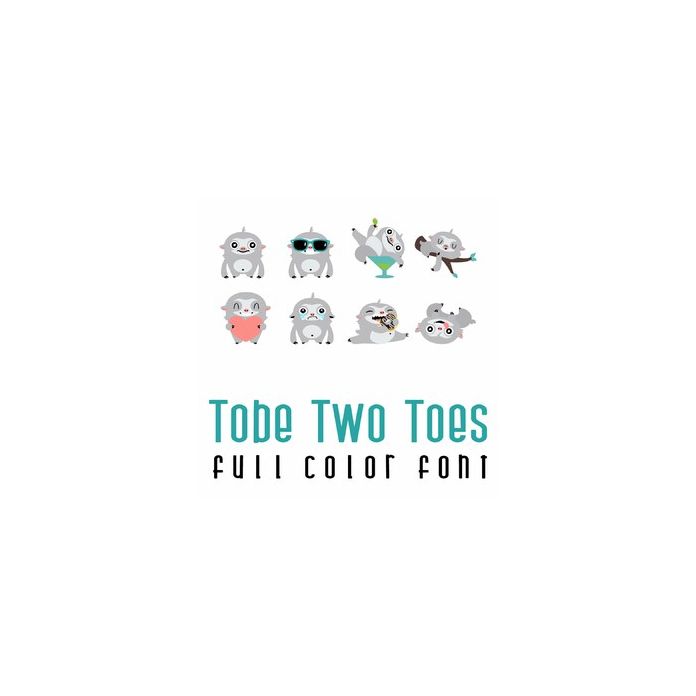
This adorable full color doodlebat font features our adorable sloths in every emotion. Perfect for cards, crafts, gifts, decor, scrap book pages, planner stickers and more!